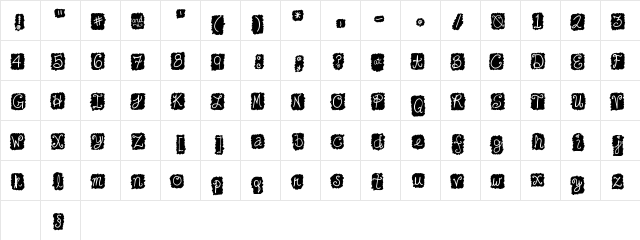
Cute Cursive Blackout Regular
| Designer | Kandi Wallace |
Design Context for Cute Cursive Blackout Typeface
Cute Cursive Blackout brings a calligraphic fluidity to the page — its connecting strokes and expressive curves give it an unmistakably human quality.